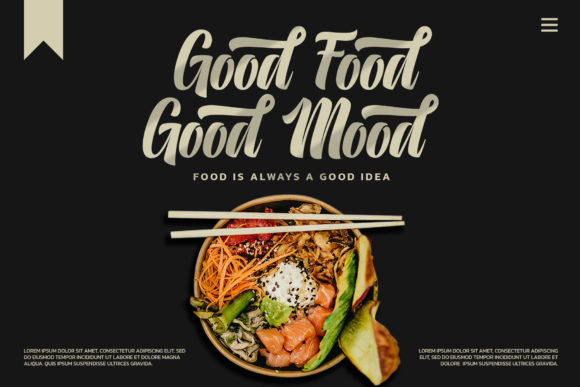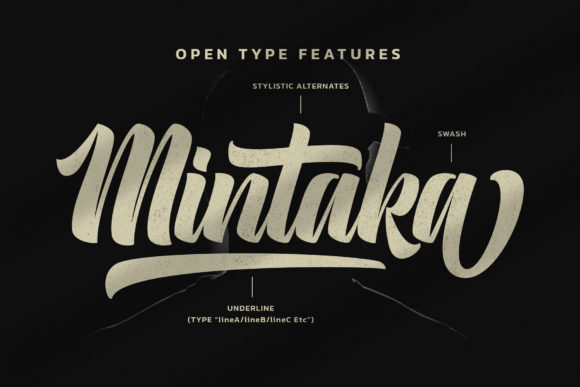
Mintaka Font
db-ku.com - Script & Handwritten -- Mintaka is a gorgeous and modern script font crafted to add stylish characters to your designs. You can use it to create food&drink menus, branding, barbershops, food ads, fashion, magazines, and more.